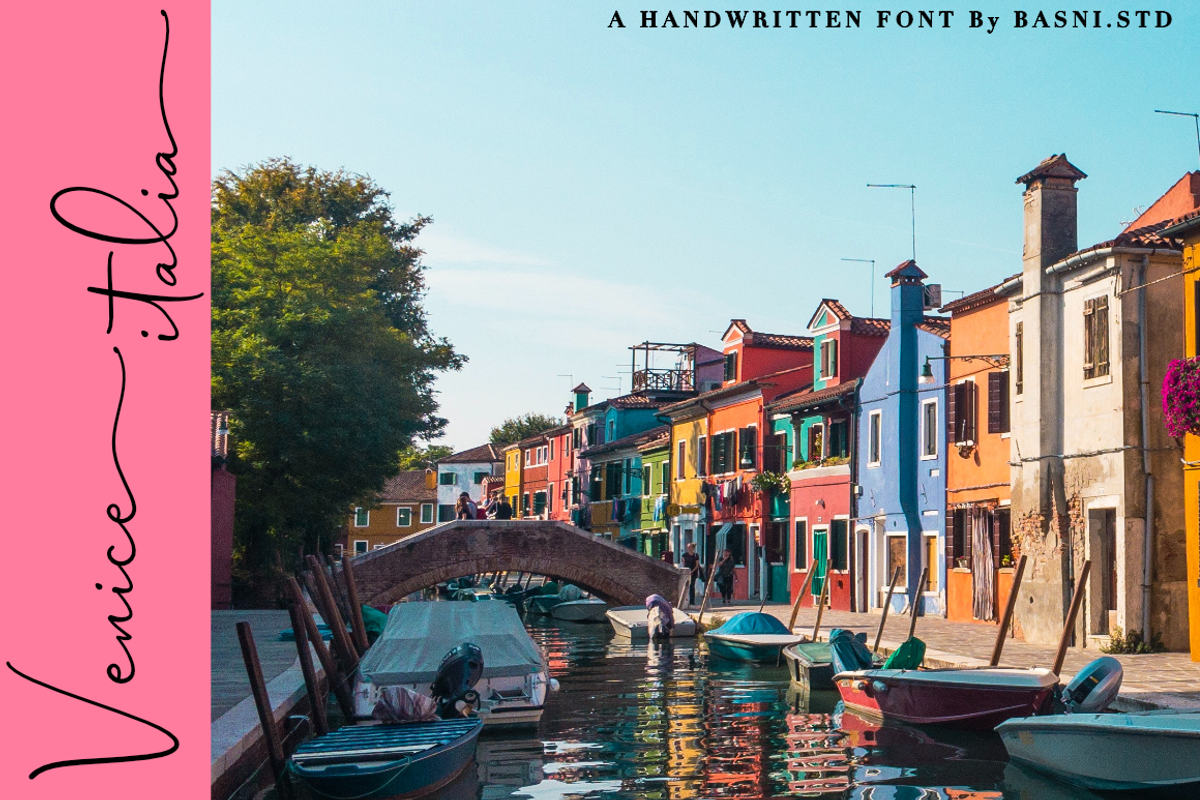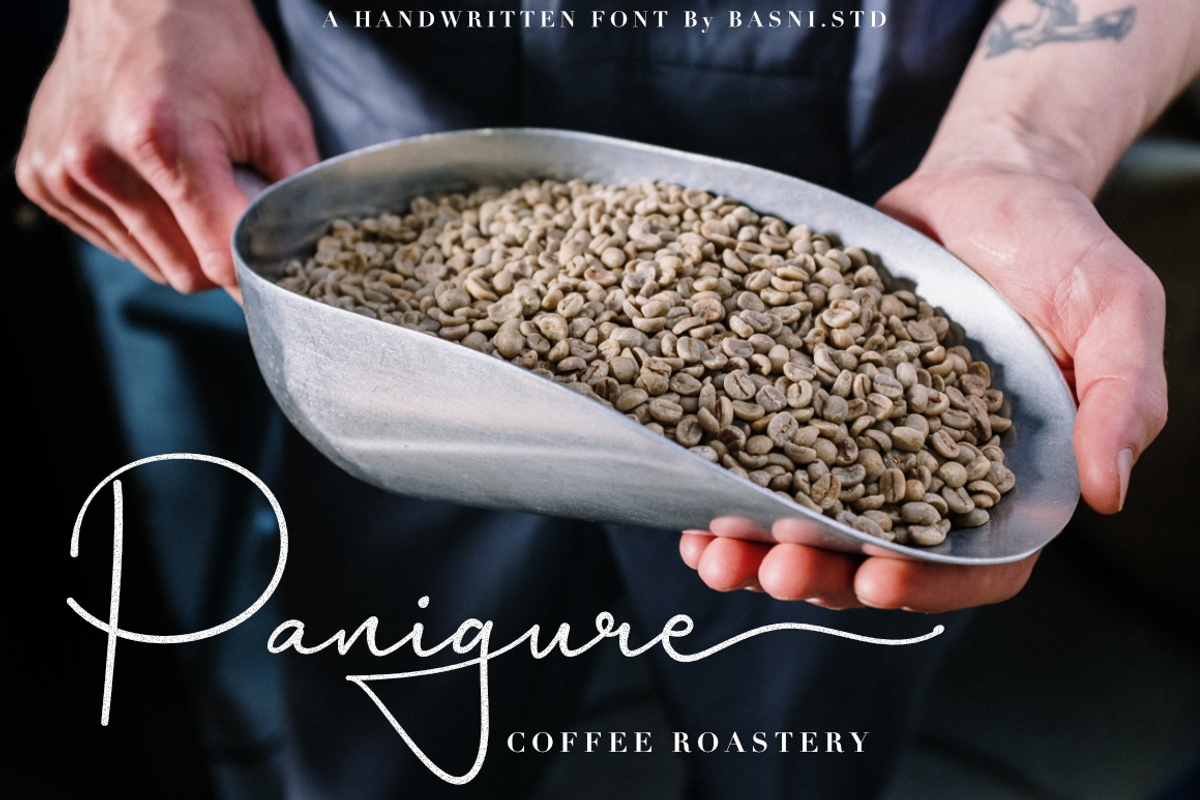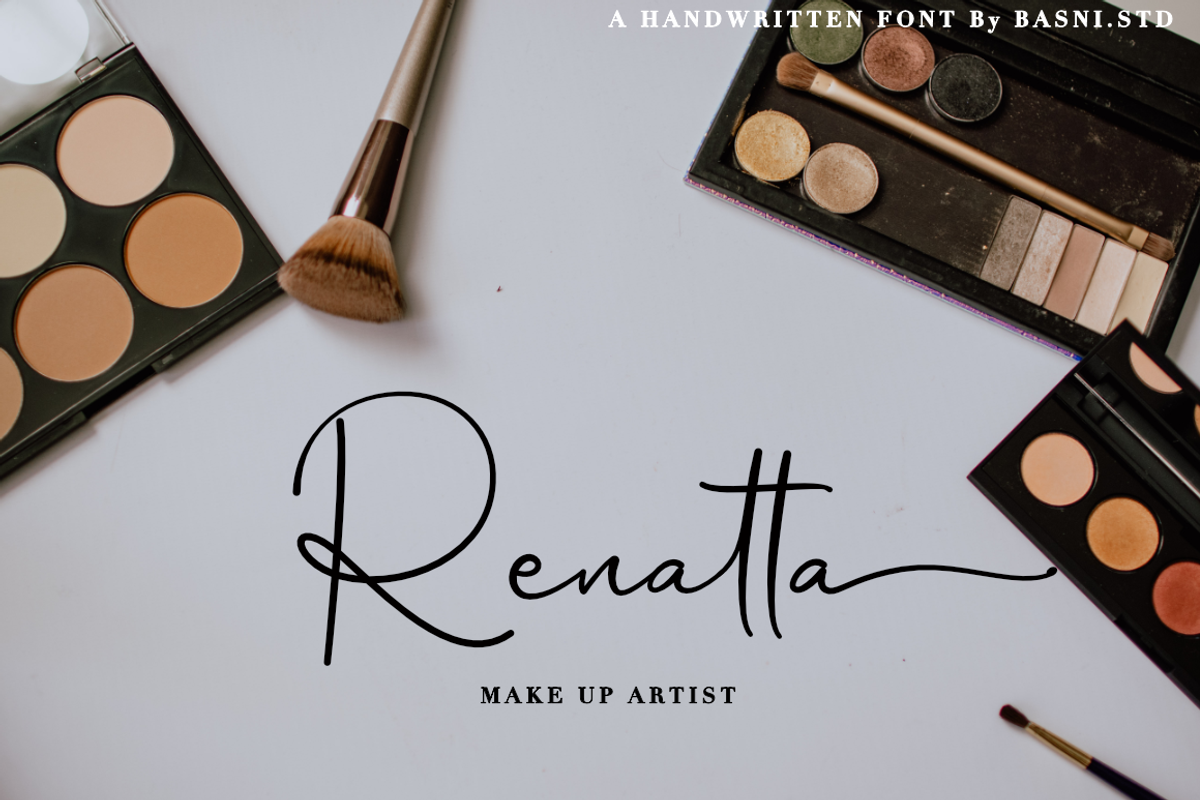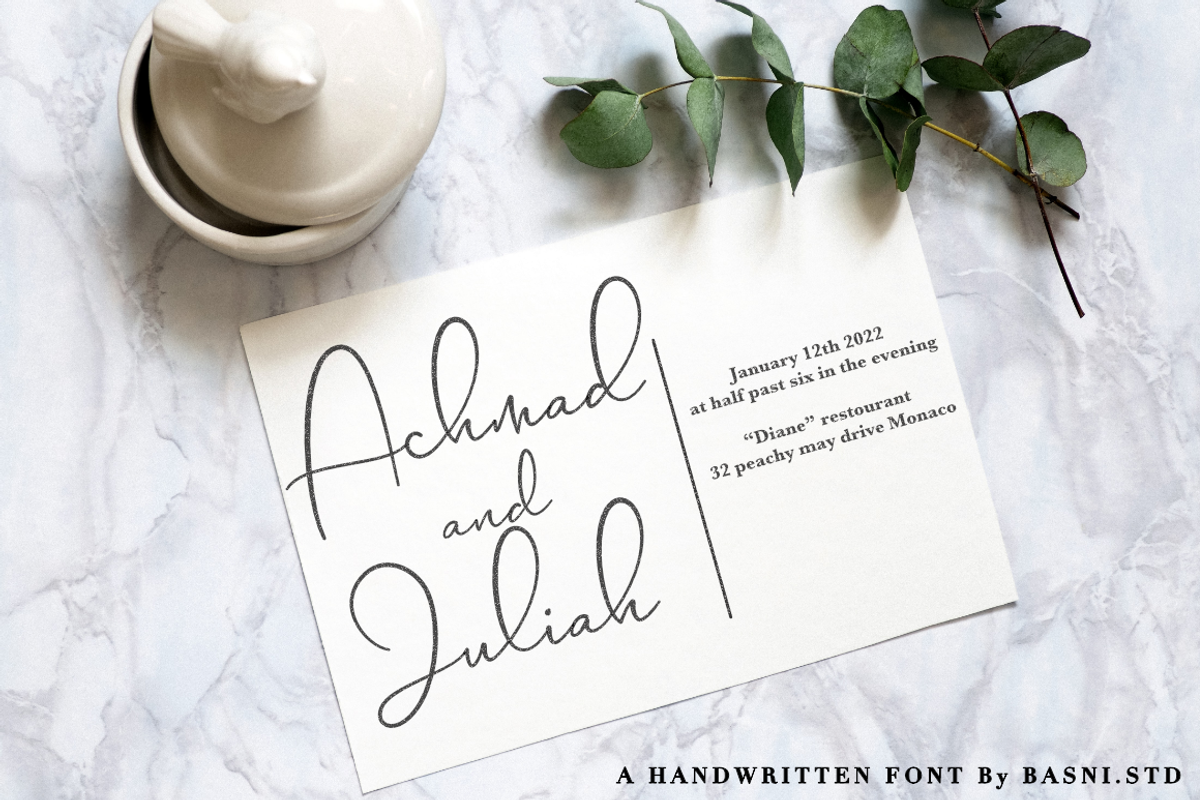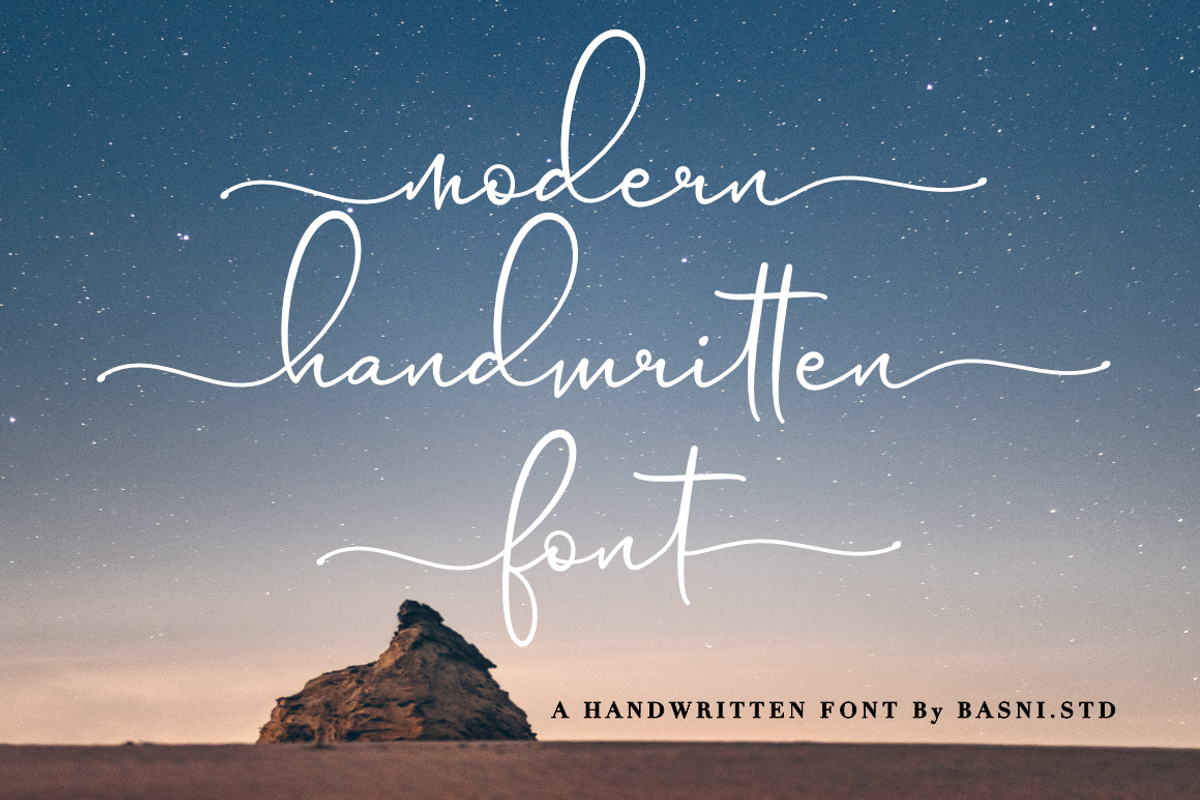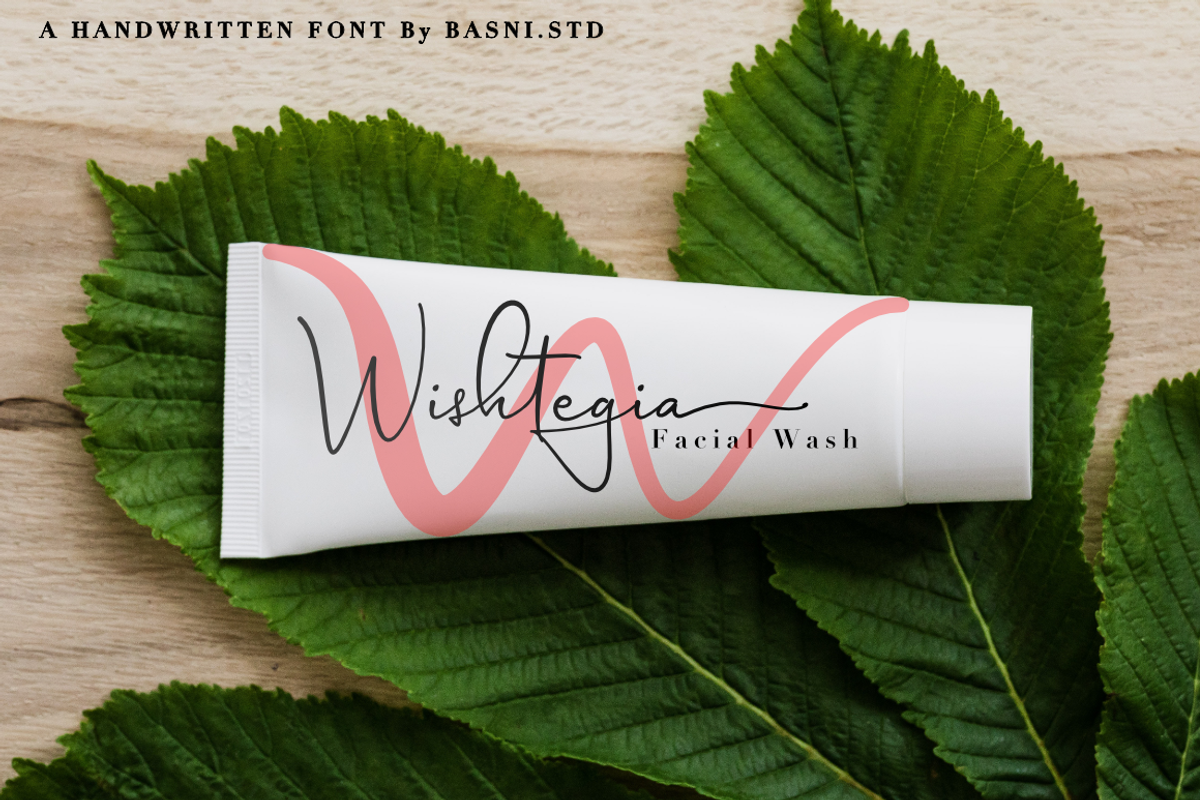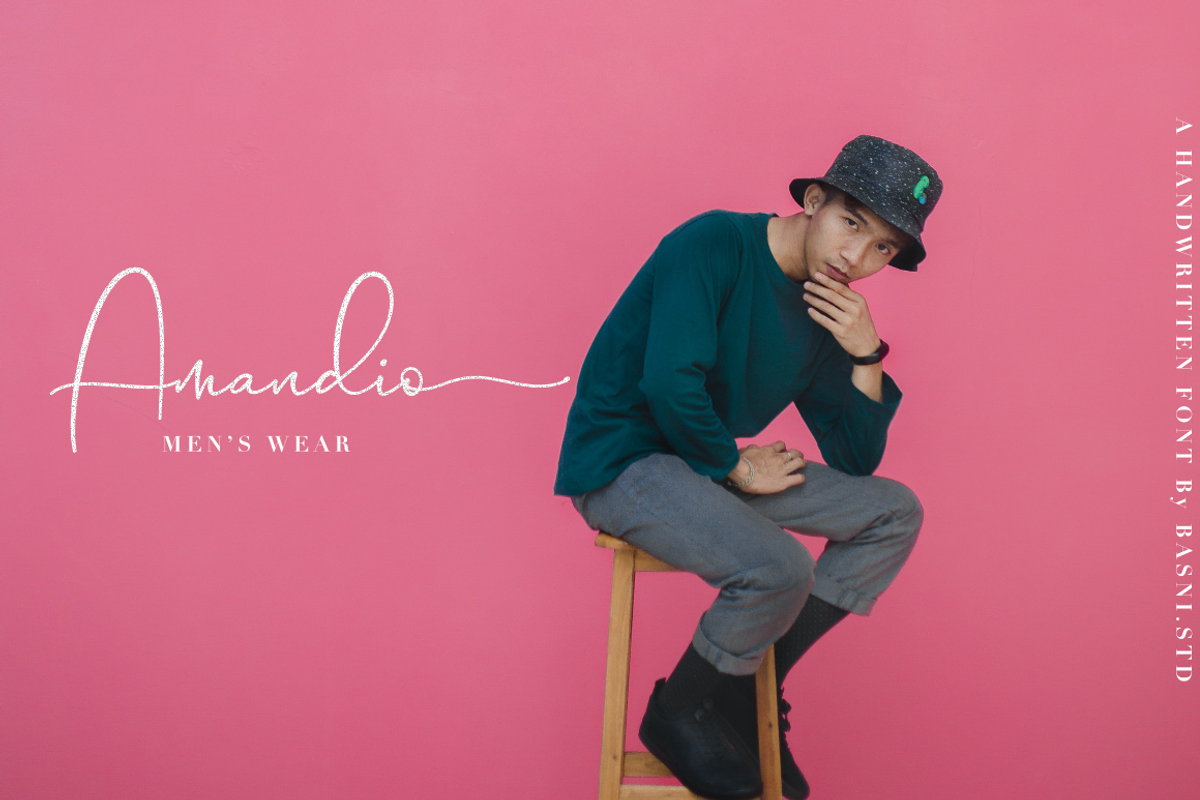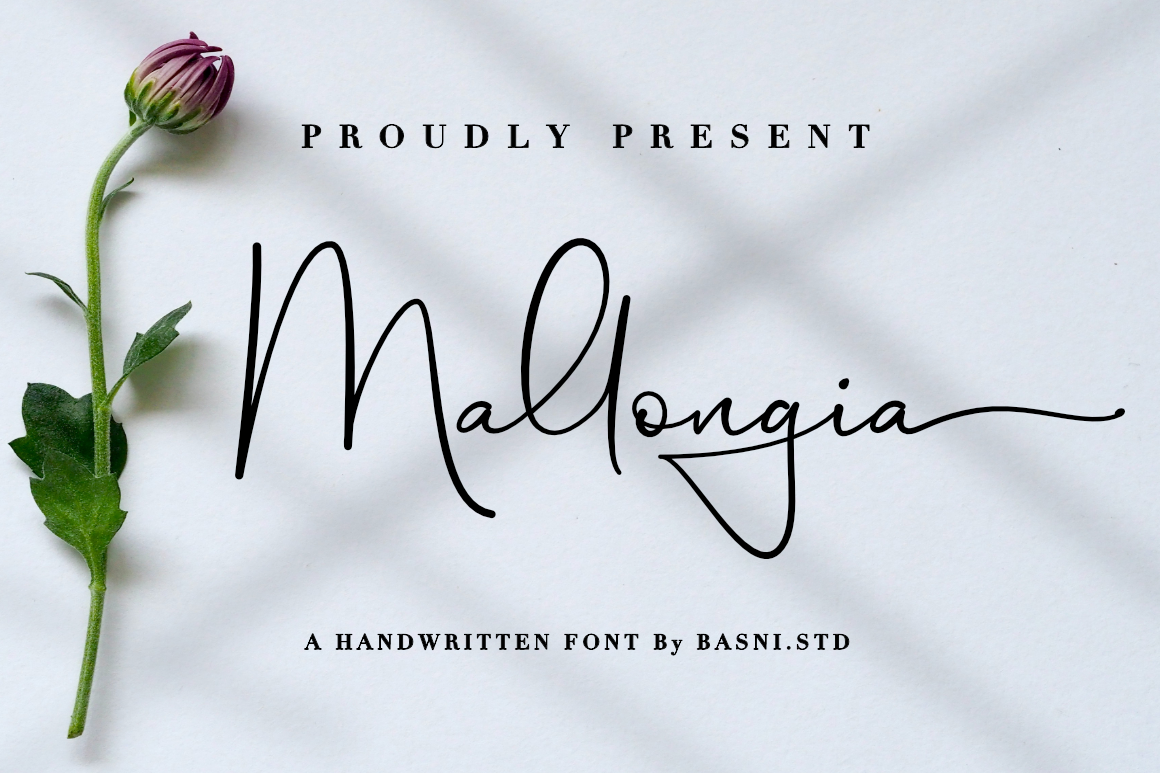
Mallongia a Handwritten Font
Introducing Mallongia, a Modern Handwritten font,
Mallongia is perfect for branding, websites, design invitation, and editorial designs. Includes all upper and lower case letters, multilingual support, punctuation, binding and initial and final swash. everything can be easily accessed using software that supports OpenType.